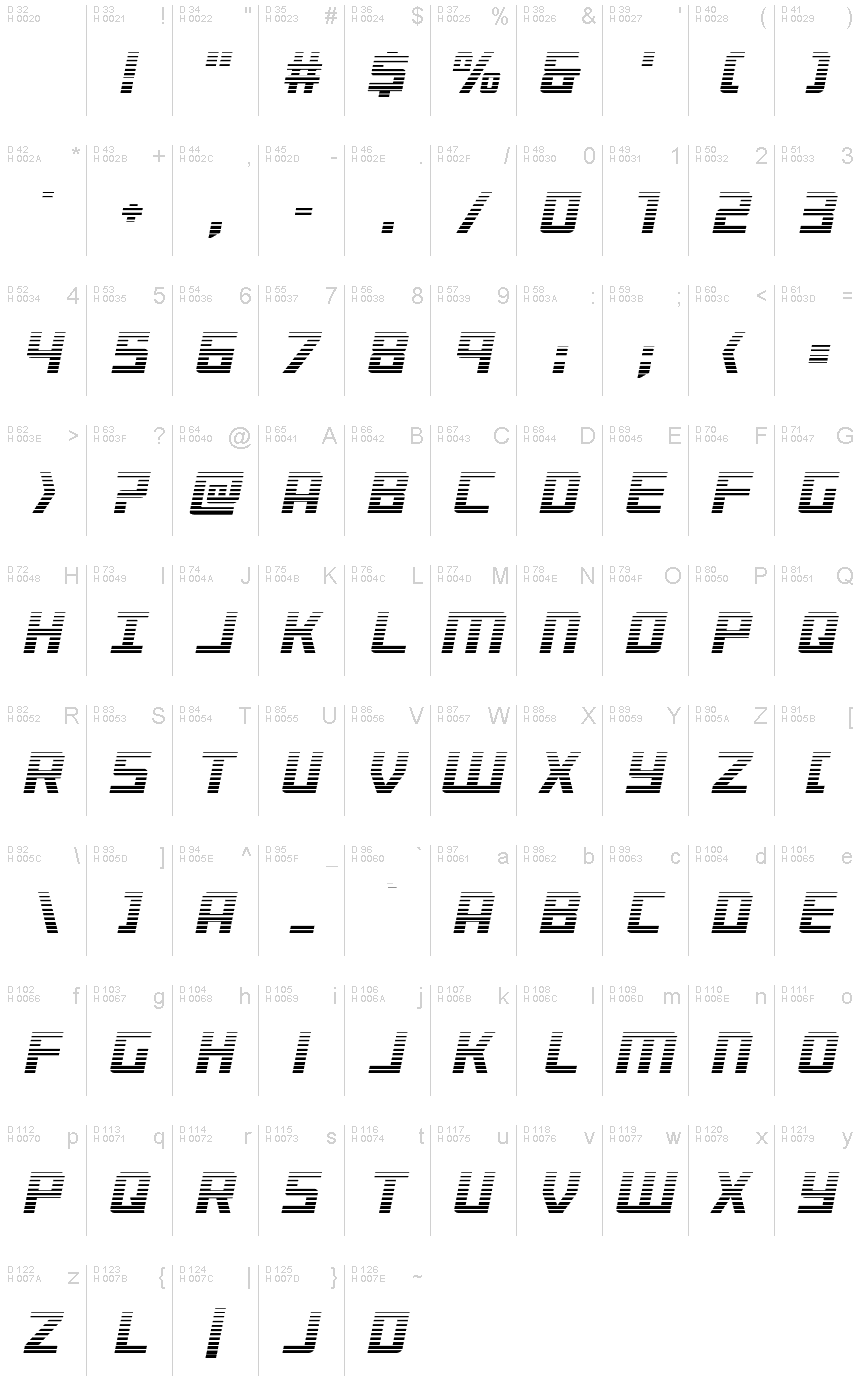
Brave Phoenix Gradient Italic
The Brave Phoenix Gradient Italic font is a bold and futuristic display typeface designed by Iconian Fonts. With its techno style and semi-expanded width, this font is perfect for projects that require a strong and contemporary look.
Its all-caps design adds emphasis to any text, making it suitable for logos, headlines, and branding materials. The gradient effect adds depth and dimension to your designs, making them visually striking and captivating. Whether you're designing posters, album covers, or website headers, the Brave Phoenix Gradient Italic font will make your projects stand out with its unique and eye-catching style.